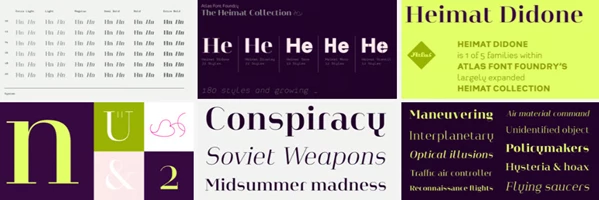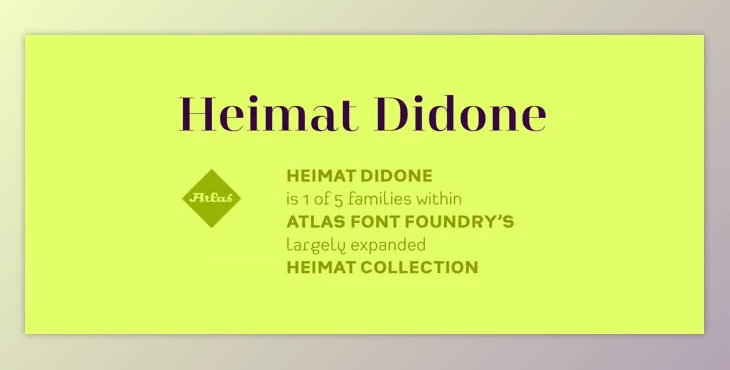
My Fonts - Heimat Didone - Neo-Classical Typeface:
Heimat Didone is a lovely neo-classical serif font from the Heimat Collection, which also features Heimat Display, Heimat Sans, Heimat Mono, and Heimat Stencil. This is a modernized font for use in headlines, posters, and reading. It combines a visually pleasing look with the more grid-like, letter-structured appearance of fonts from the late 1920s. It acknowledges that boldness may not always work for every font use, so it provides two alphabets: a regular and a more neutral version.
Heimat Didone contains 872 glyphs in 72 styles and offers 6 optical weights. There are several alternate glyphs, ligatures, proportional and monospaced hanging and lining figures, and proportional spaces. It has positive/negative circled figures, superior/inferior figures, fractions, and complete language support. There are several open type options, making this a comprehensive, elegant typeface.